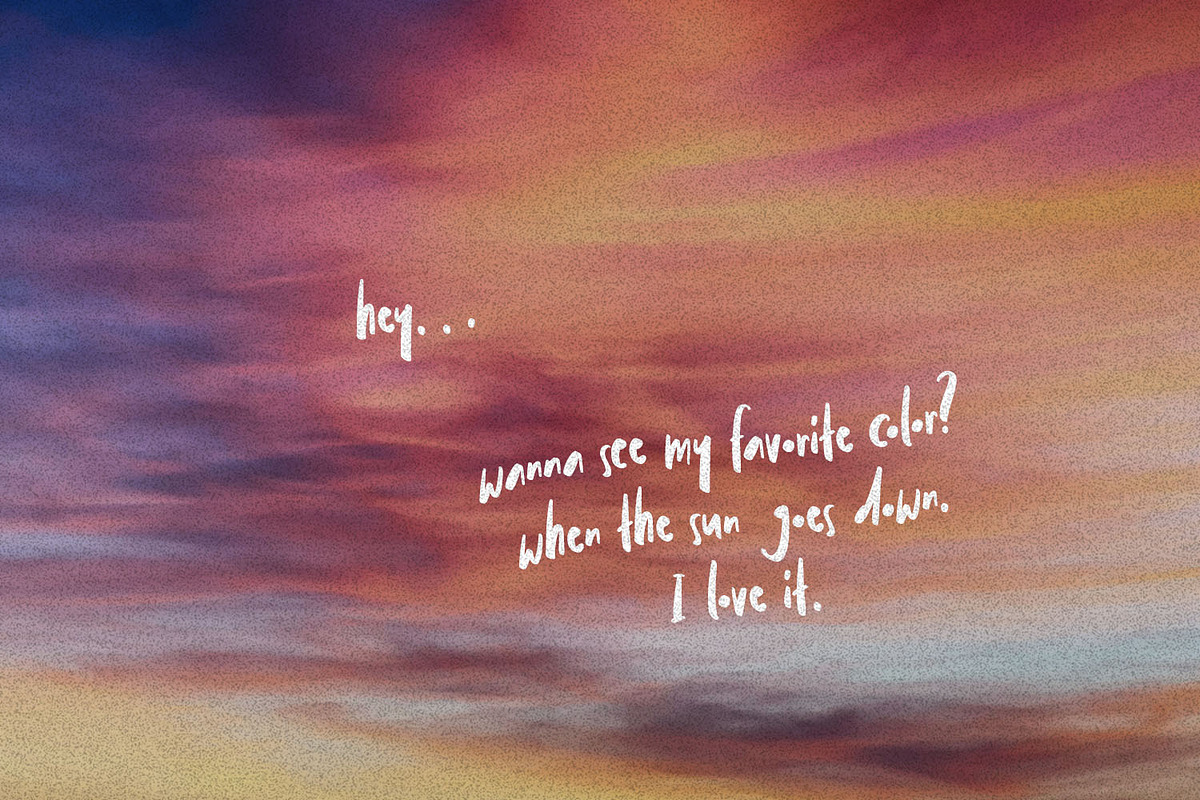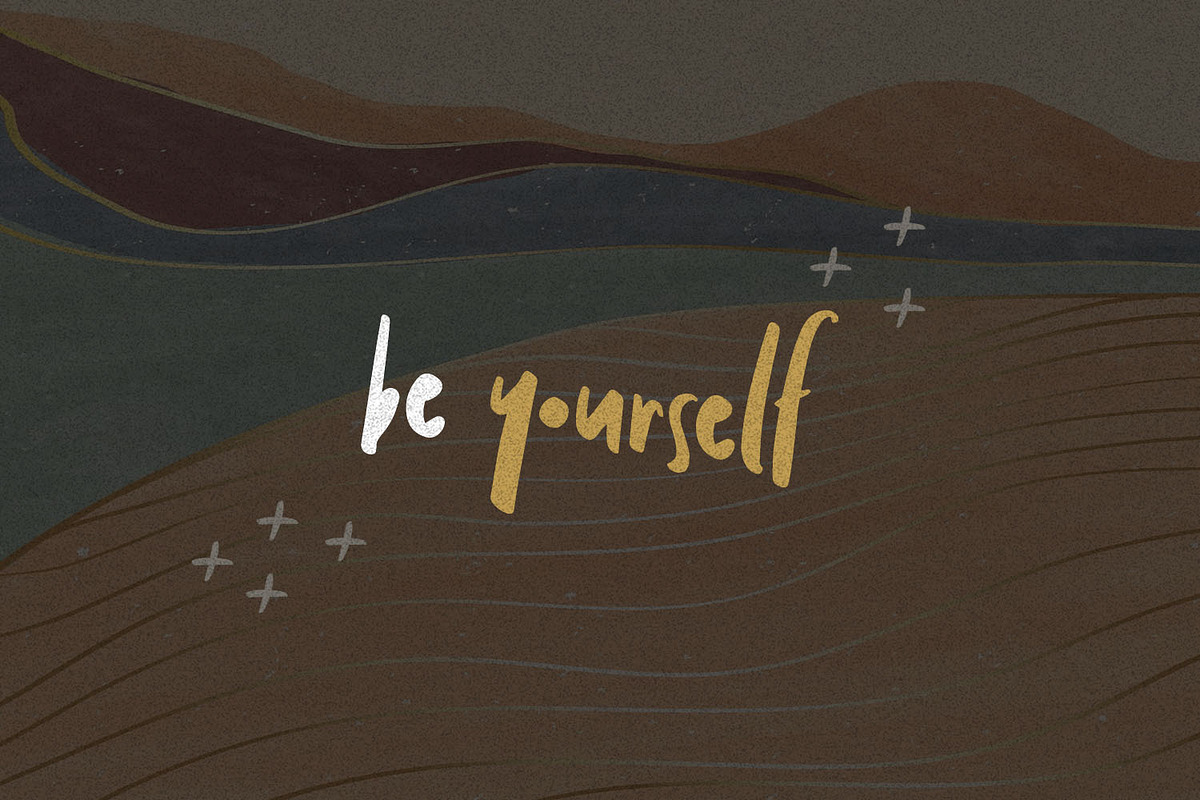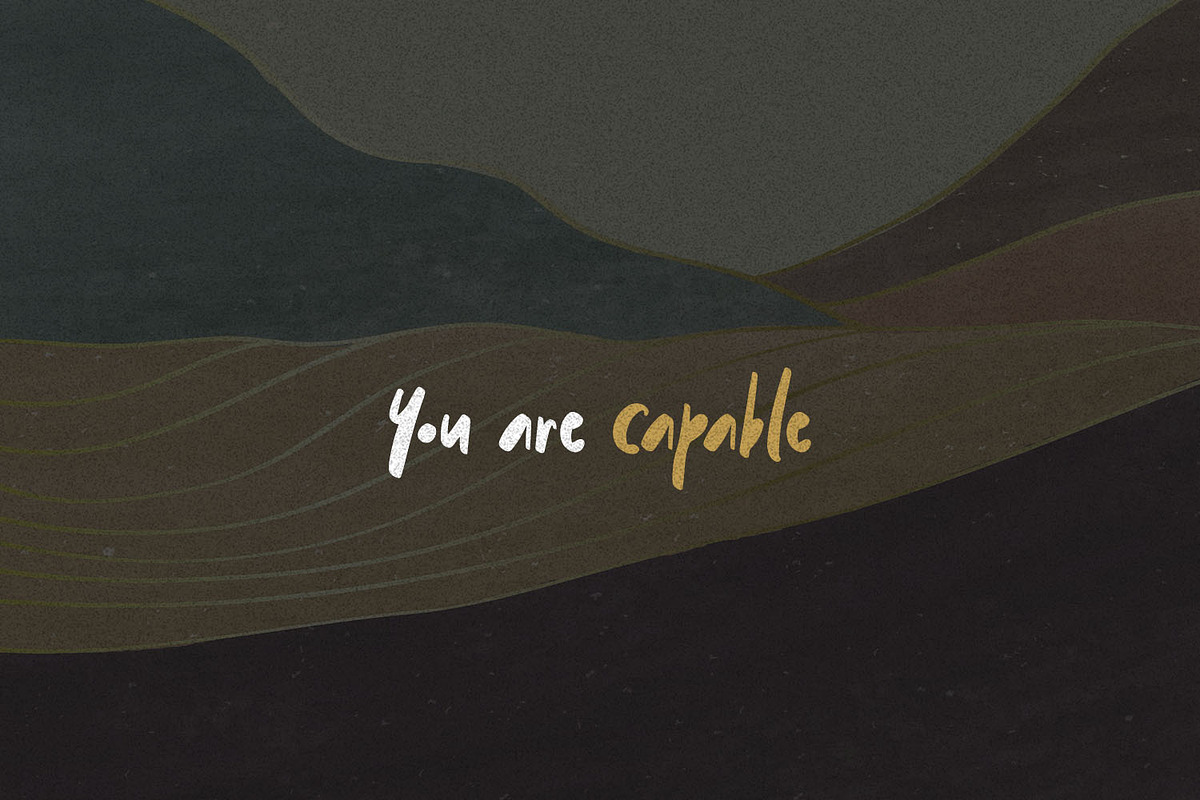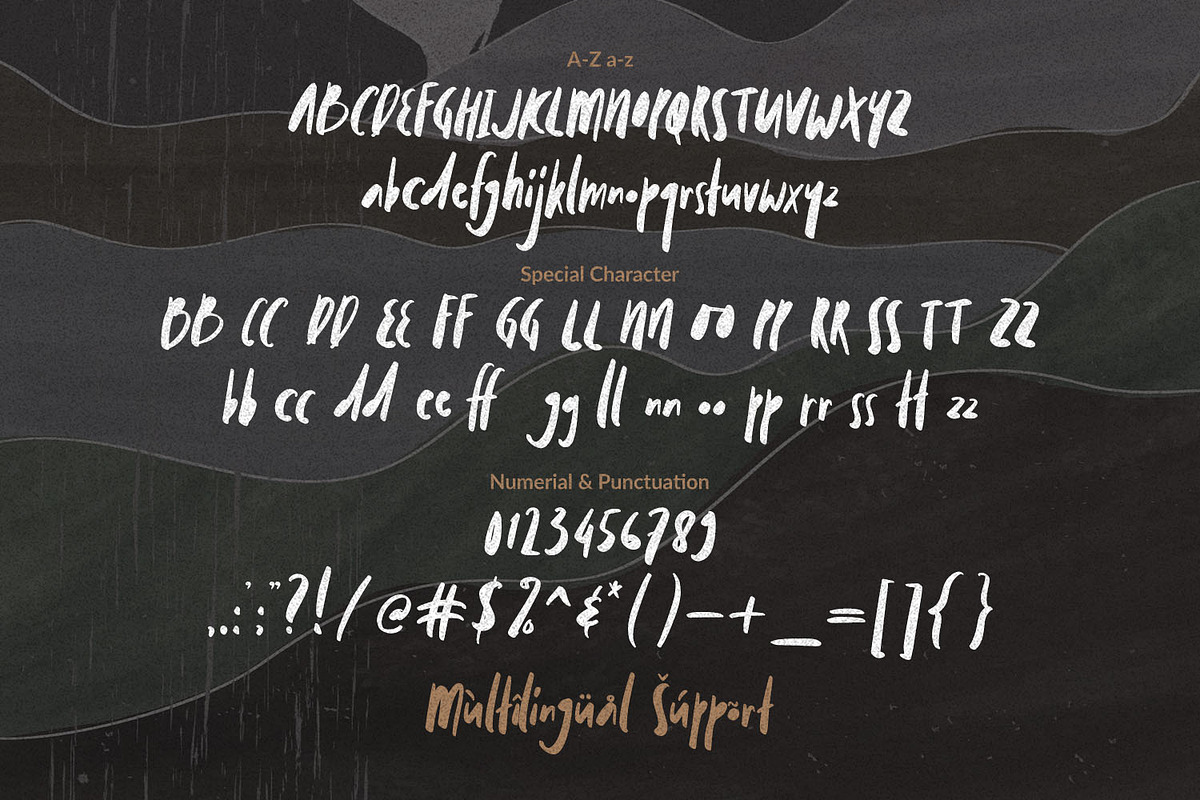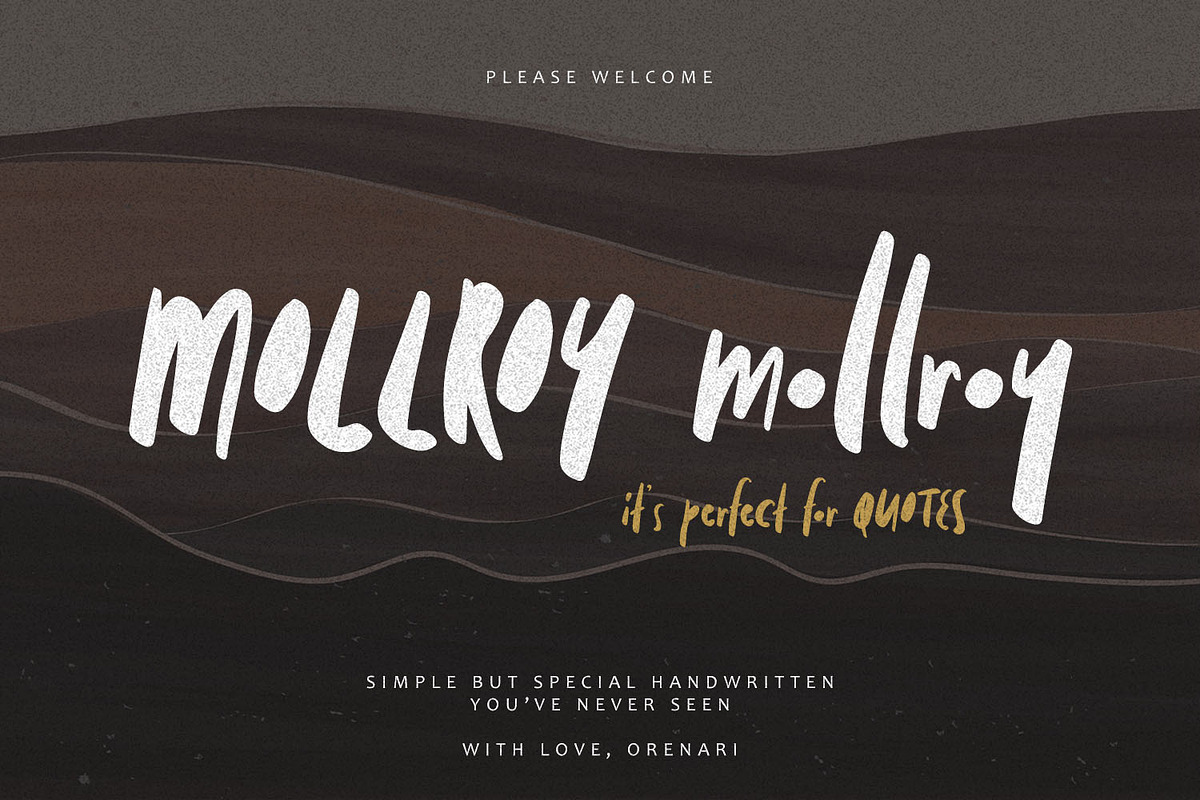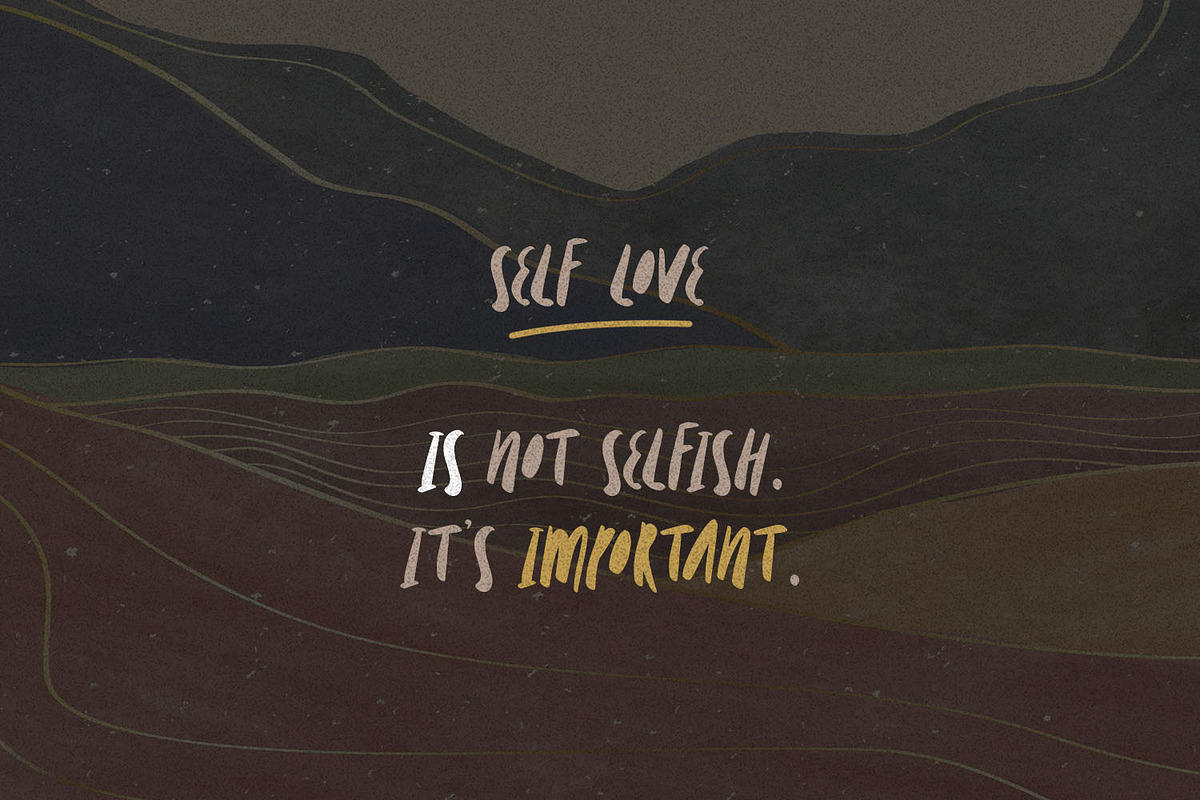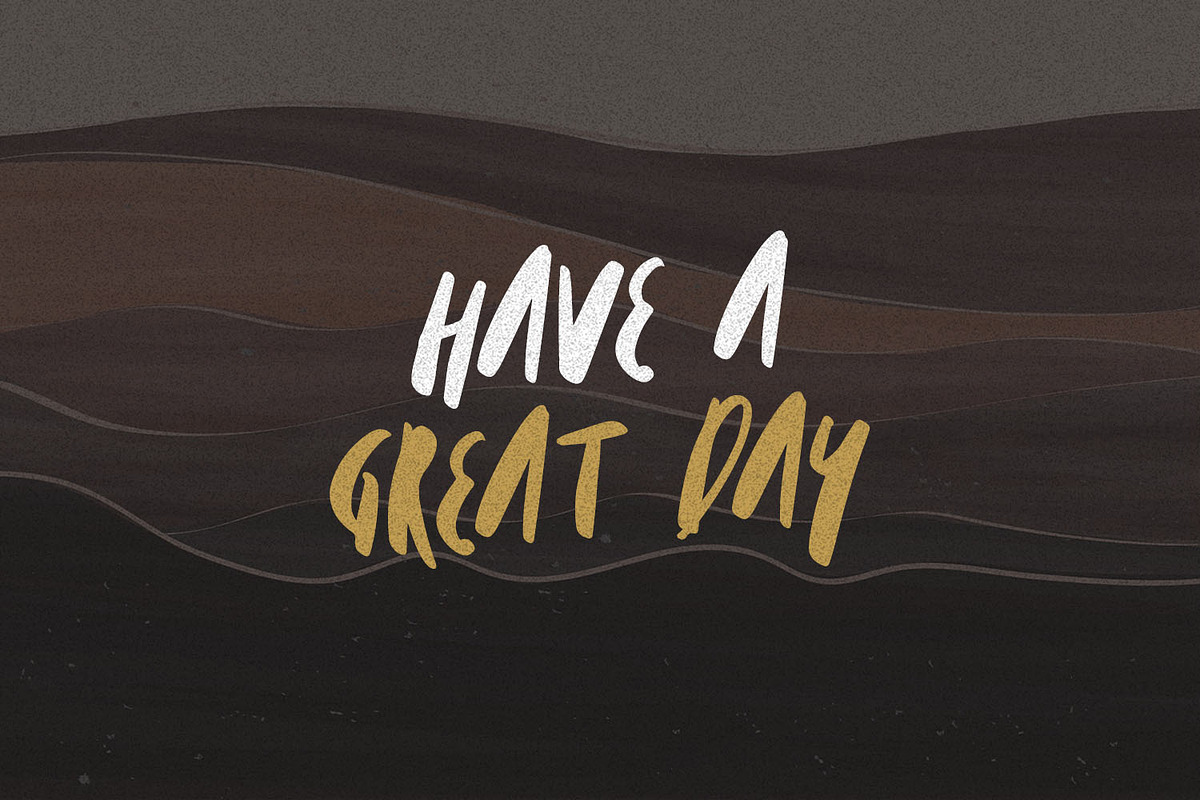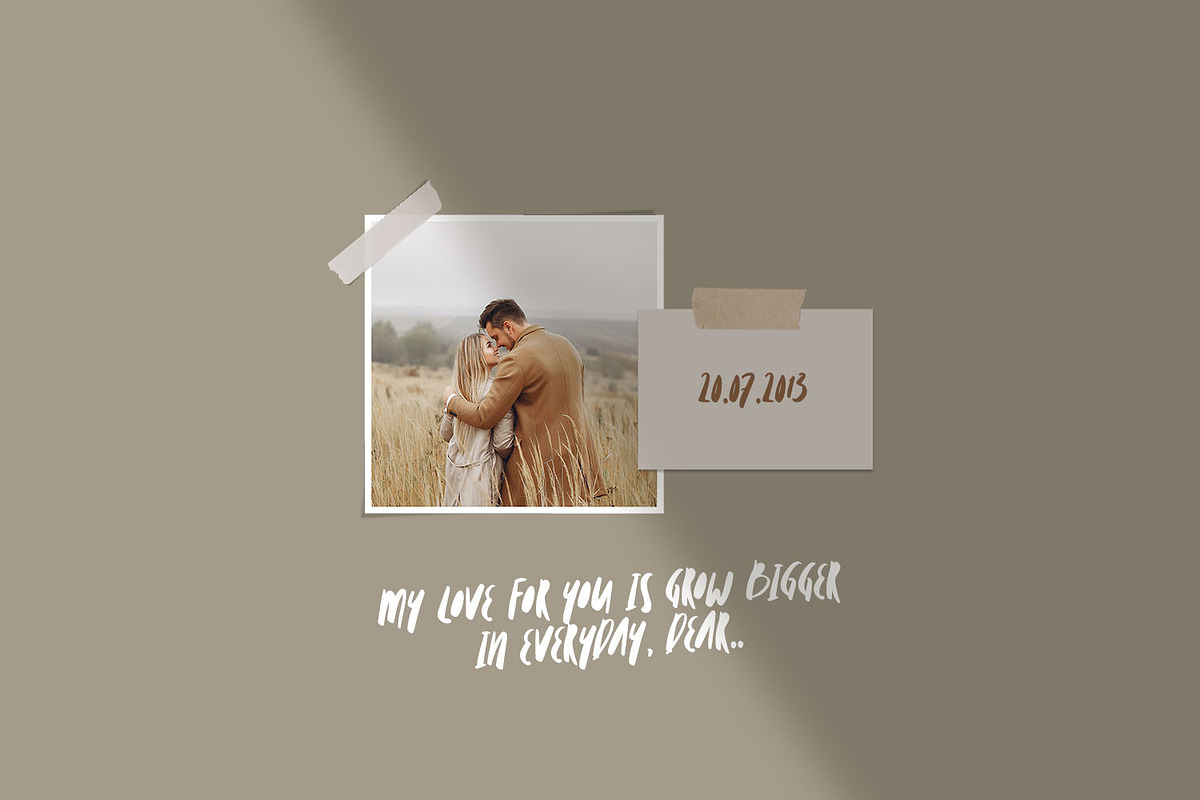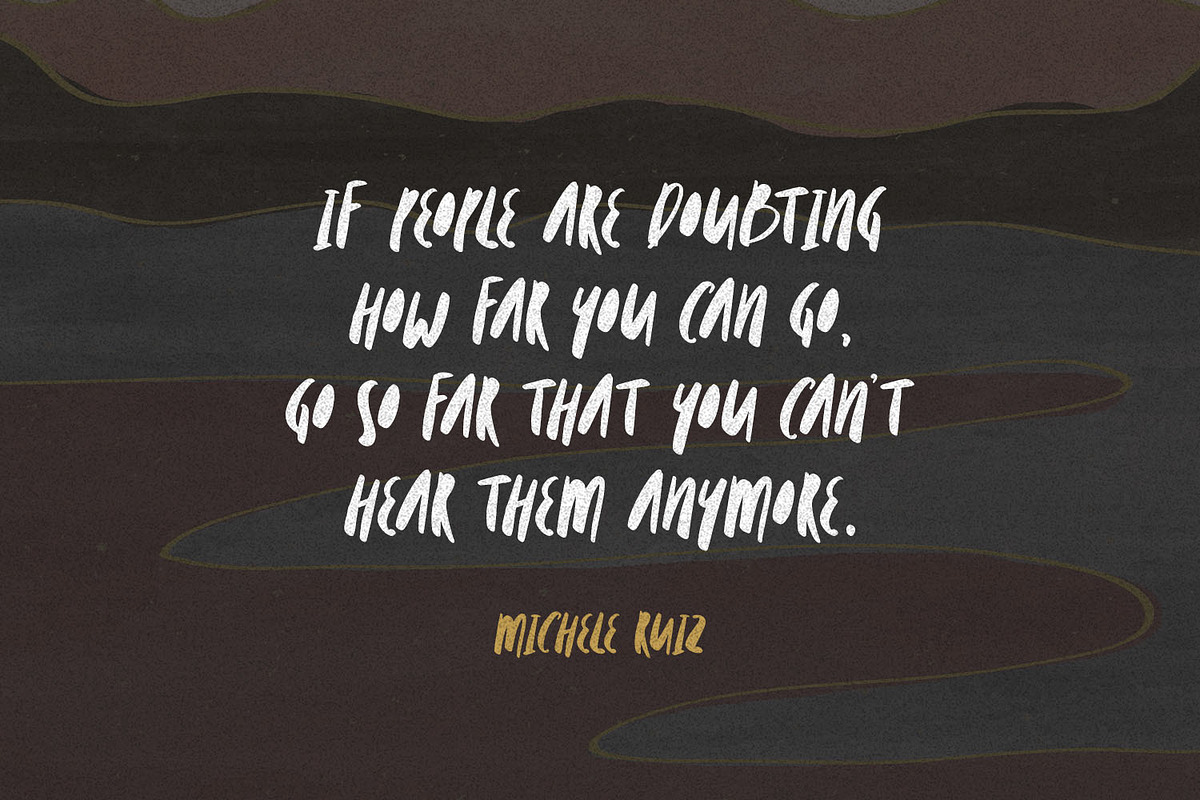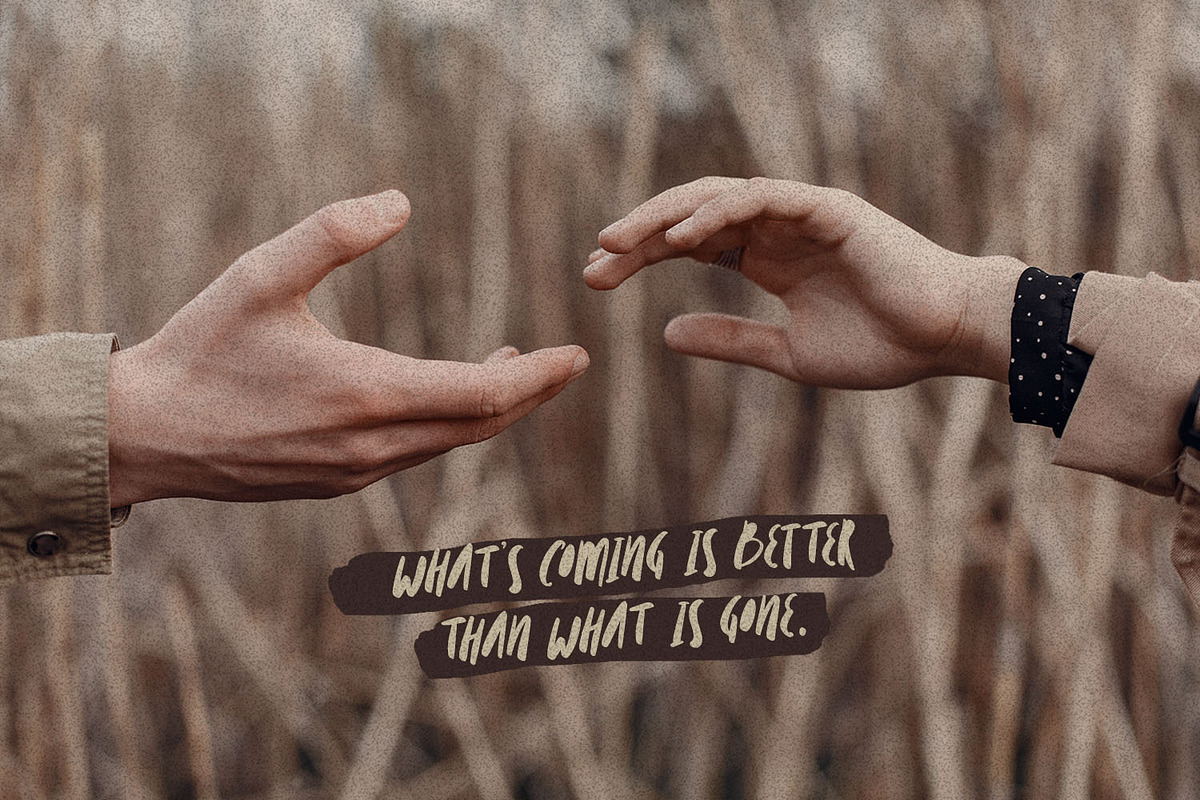
Mollroy ~ Perfect for Quotes
Please welcome Mollroy. A simple but special handwritting and it's perfect for quotes. Mollroy also fit for any range of your design projects. This font is naturally written by my self, so the flow of each characters became unique. Take your design project to the next level with Mollroy.